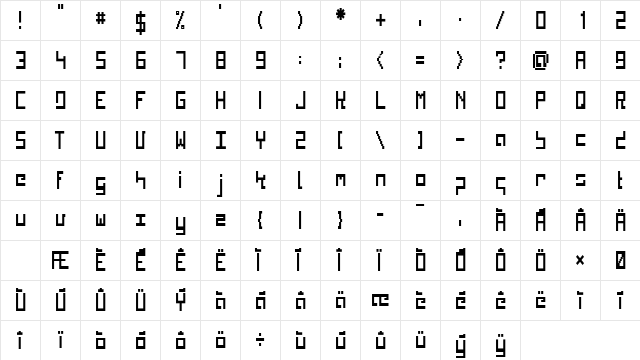
Kinkub flat Condensed
Design Context for Kinkub flat Typeface
Kinkub flat is a composed and adaptable typeface that performs quietly and consistently across a wide range of design contexts. The condensed width makes it efficient for tight spaces without sacrificing legibility.